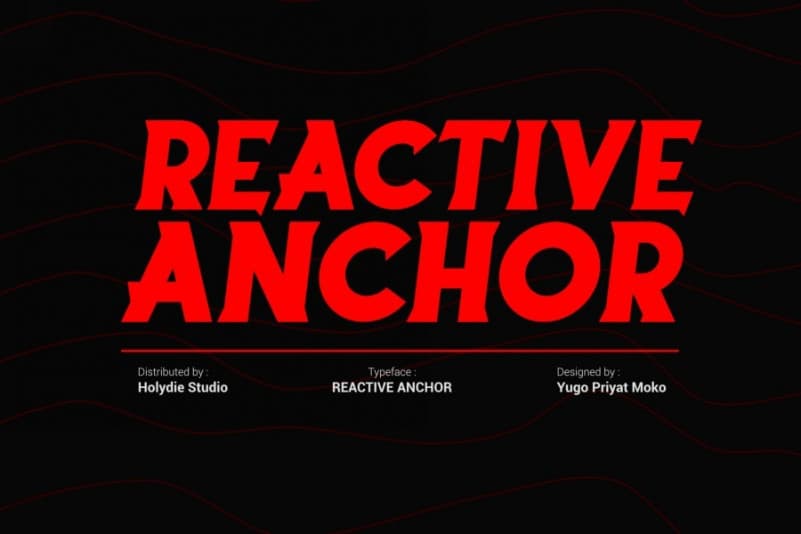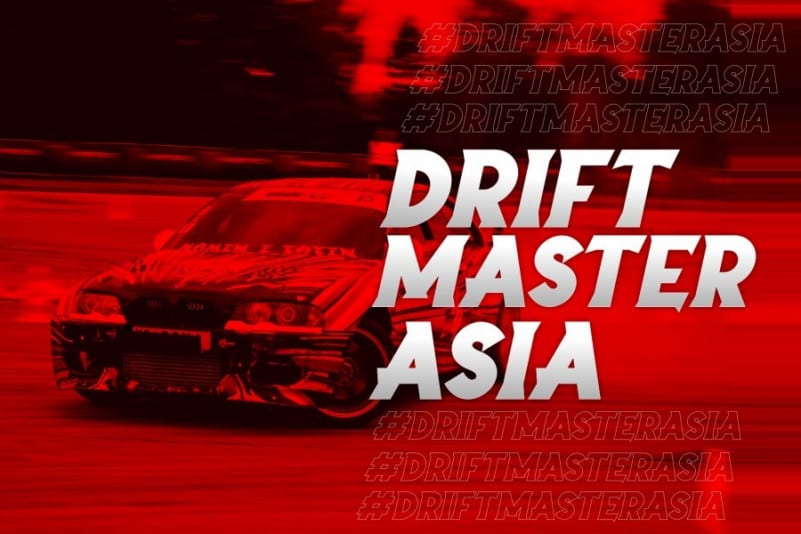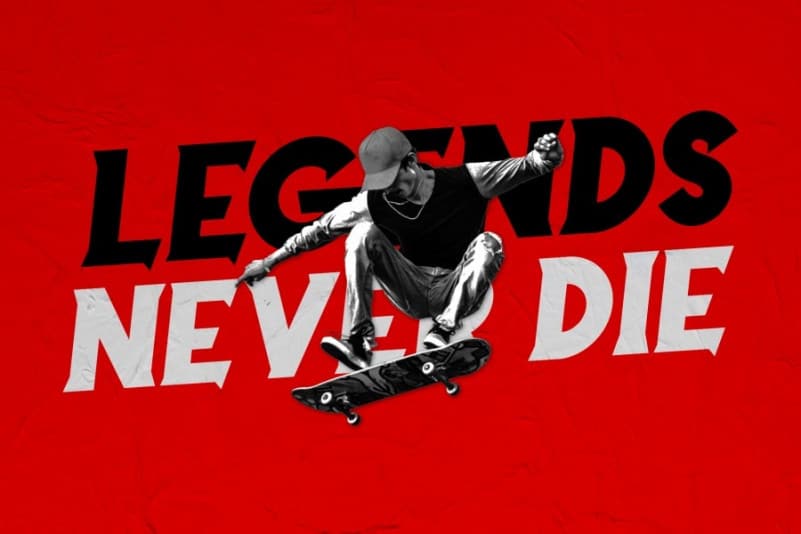
Reactive Anchor Display Font
Reactive Anchor Display Font is a sans based font with unique typeface that will make your design looks futuristic and modern. It’s modern style with sharp shapes. You can use this font for any purpose, especially to make logotype.
It has all the stylings of a swanky display typeface, which is its primary purpose. Yet it still functions well as a moderately sized text face because of its generous x-height and optical corrections which are a hallmark of Hypersick releases.